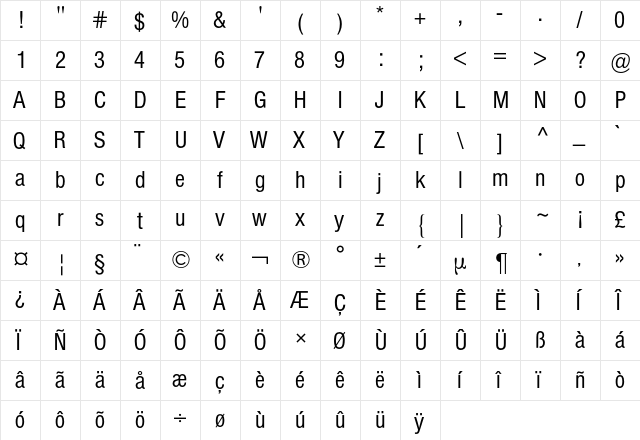
Helvetica Condensed BQ Regular
Design Context for Helvetica Condensed BQ Typeface
Helvetica Condensed BQ is a composed and adaptable typeface that performs quietly and consistently across a wide range of design contexts. The condensed width makes it efficient for tight spaces without sacrificing legibility.